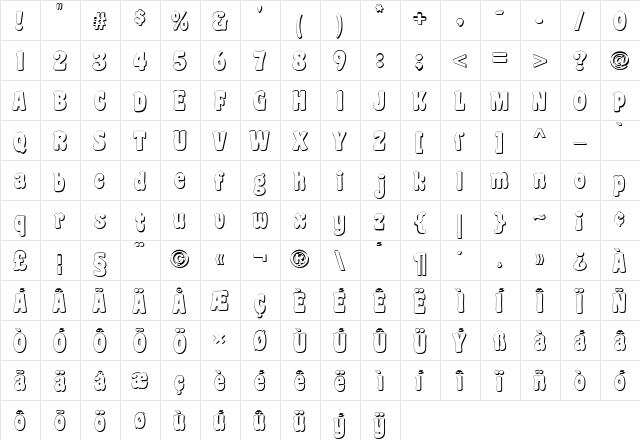
Coaster Shadow Regular
Design Context for Coaster Shadow Typeface
Coaster Shadow is built around its visual character rather than neutral utility — its distinctive forms are designed to make an impression at display sizes.
Font Pairing: Pair with a clean neutral sans-serif for body copy to let Coaster Shadow's character lead without overwhelming the composition.
Pro Tip: Treat Coaster Shadow as the centrepiece of your typographic hierarchy. One strong heading set in a decorative face can carry an entire layout.